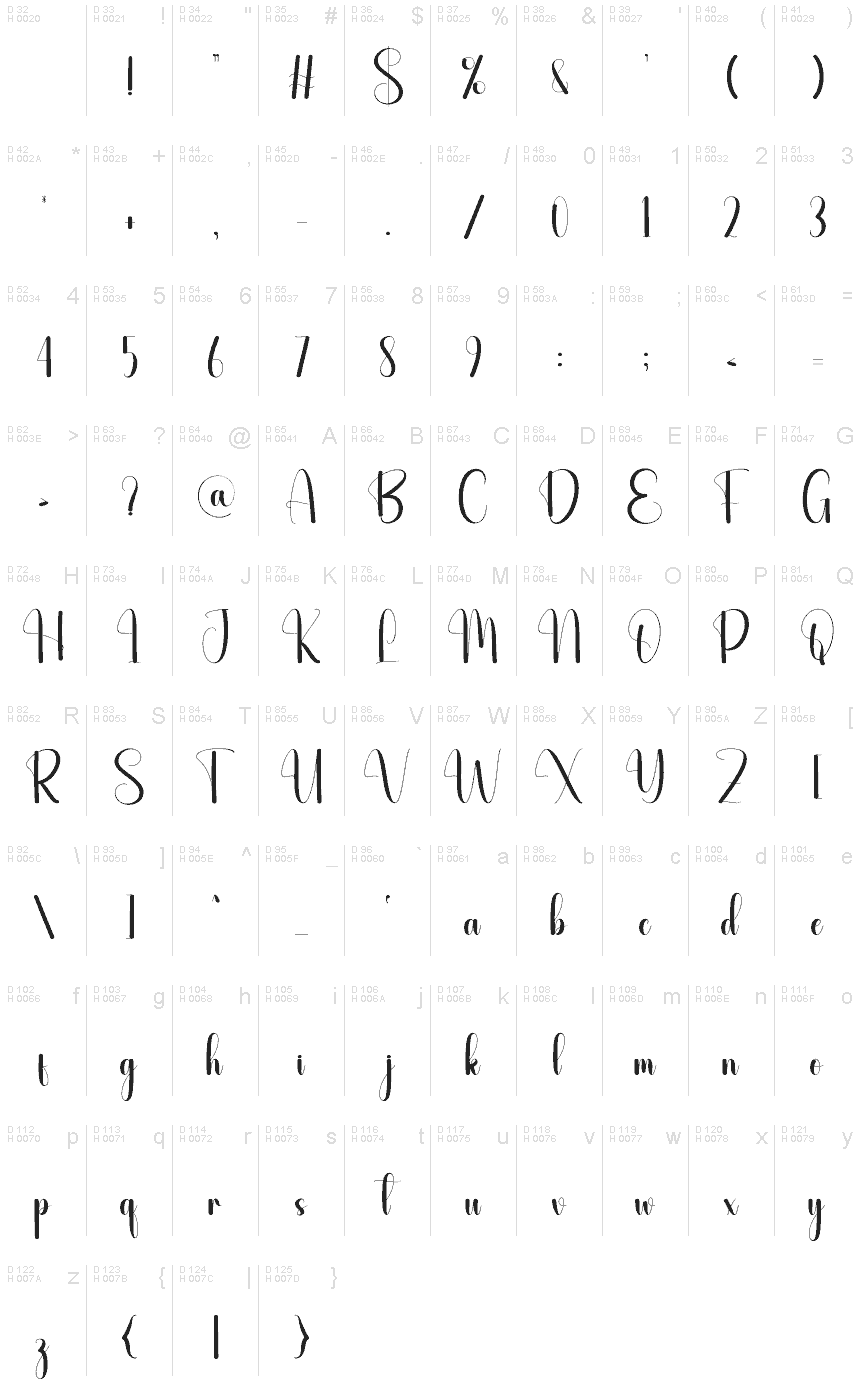
Coastal
Coastal font is a free calligraphy font designed by Andi Moz. Its elegant, flowing, and decorative style gives it a sophisticated look, further emphasized with beautiful ligatures. Modern and expressive, this script font has unique charm and elegance.
Use Coastal in logos that need to leave an impressive mark or in business cards where professionalism has its goal. All your website headers, titles inside printed magazines, advertisement materials or branding projects can also benefit from its gorgeous style. Online signatures in emails or social media posts ends this list of wonderful uses for the font.